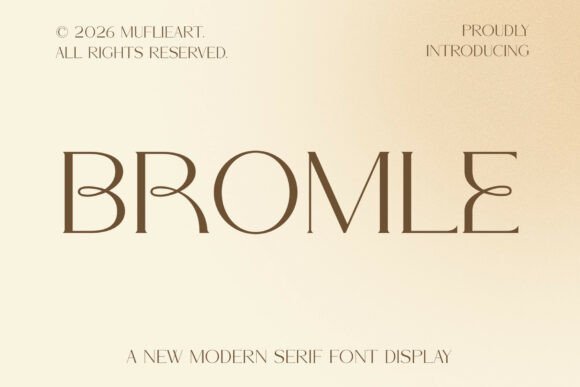
Bromle: A Modern Serif Font Display Experience the pinnacle of minimalist grace with Bromle, a new modern serif font display.
This typeface masterfully blends the refined authority of classical serifs with playful, contemporary flourishing Featuring slender, monolinear strokes and charming, looping terminals, Bromle evokes a sense of airy sophistication and creative movement.